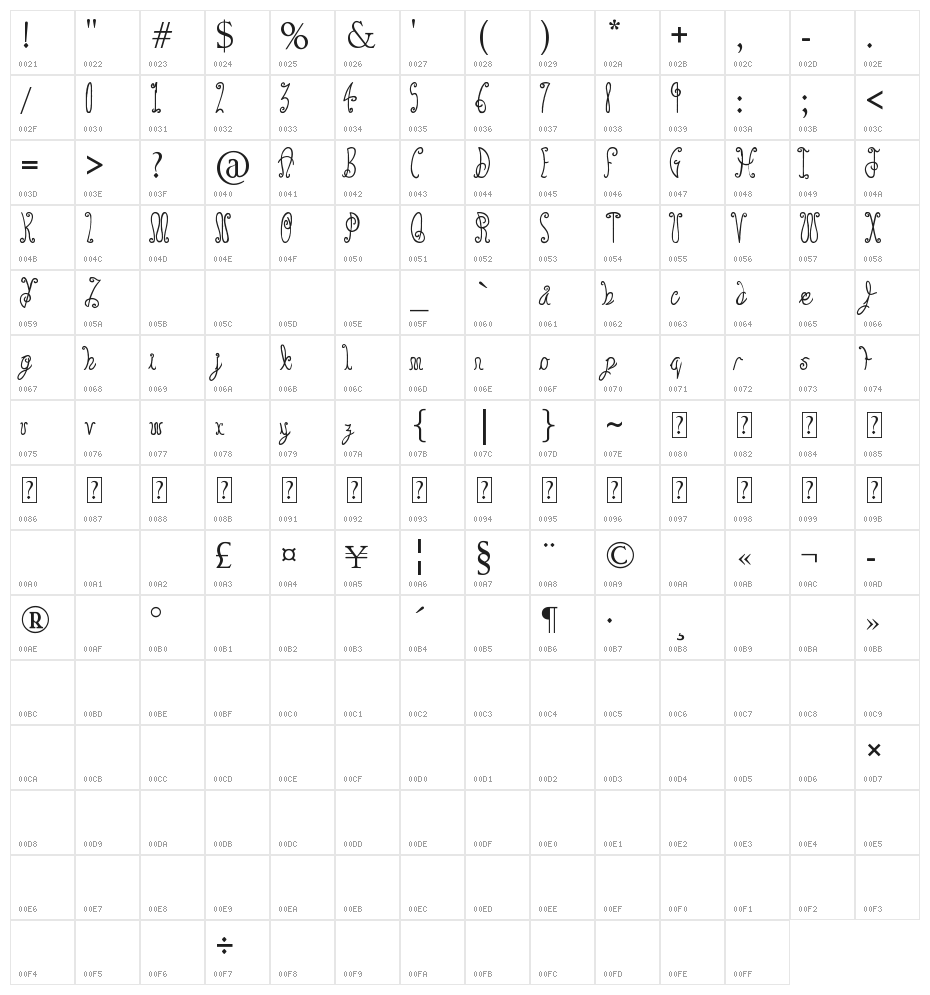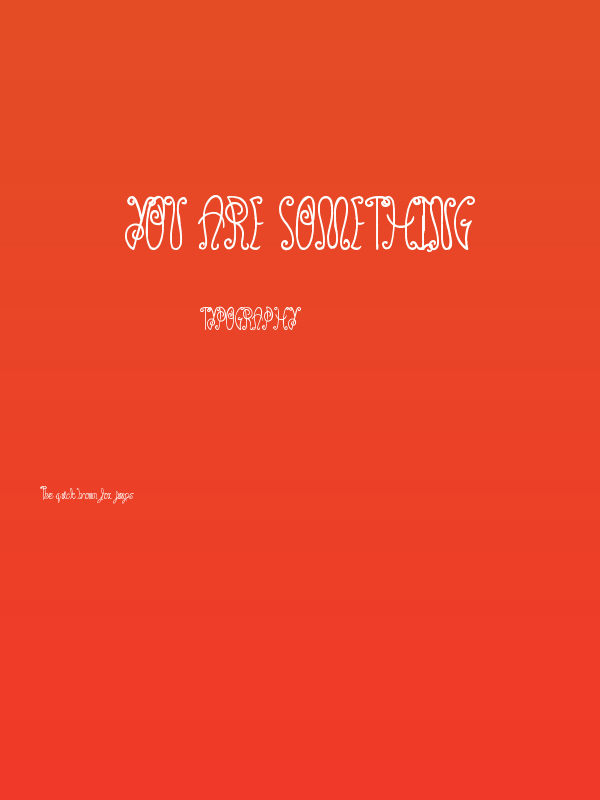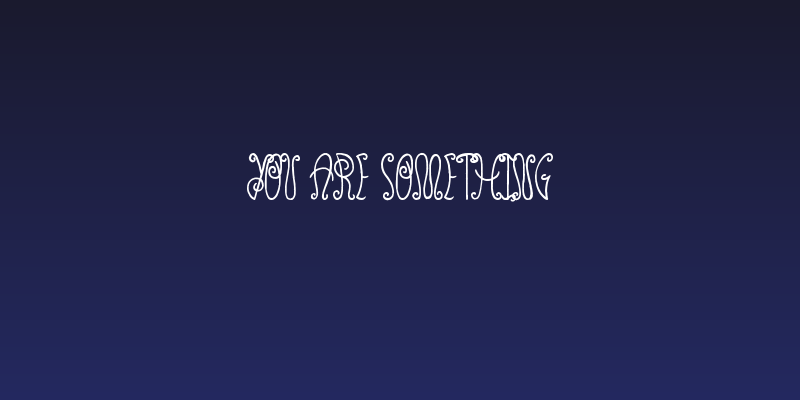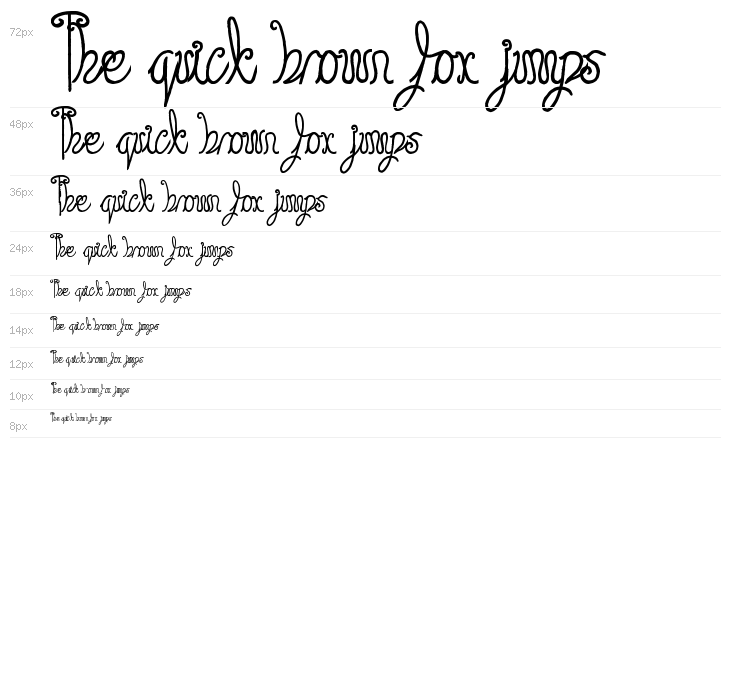
You Are Something Font
You Are Something Description
This font features an ornate and whimsical design with elaborate curls and loops. Each character is uniquely crafted with a playful and artistic flair, making it stand out with its decorative style. The uppercase letters are particularly elaborate, with intricate swirls that give them a sense of movement and elegance. The lowercase letters maintain this decorative theme, though they are slightly more subdued, allowing for readability while still retaining their artistic quality. Numbers and special characters follow the same ornate style, ensuring consistency across all elements. This font is ideal for creative projects that require a touch of elegance and whimsy.
| Use Case | Logos, Invitations, Artistic Projects |
| Proposed Projects | Perfect for wedding invitations, greeting cards, artistic posters, and branding that requires a touch of elegance and creativity. |